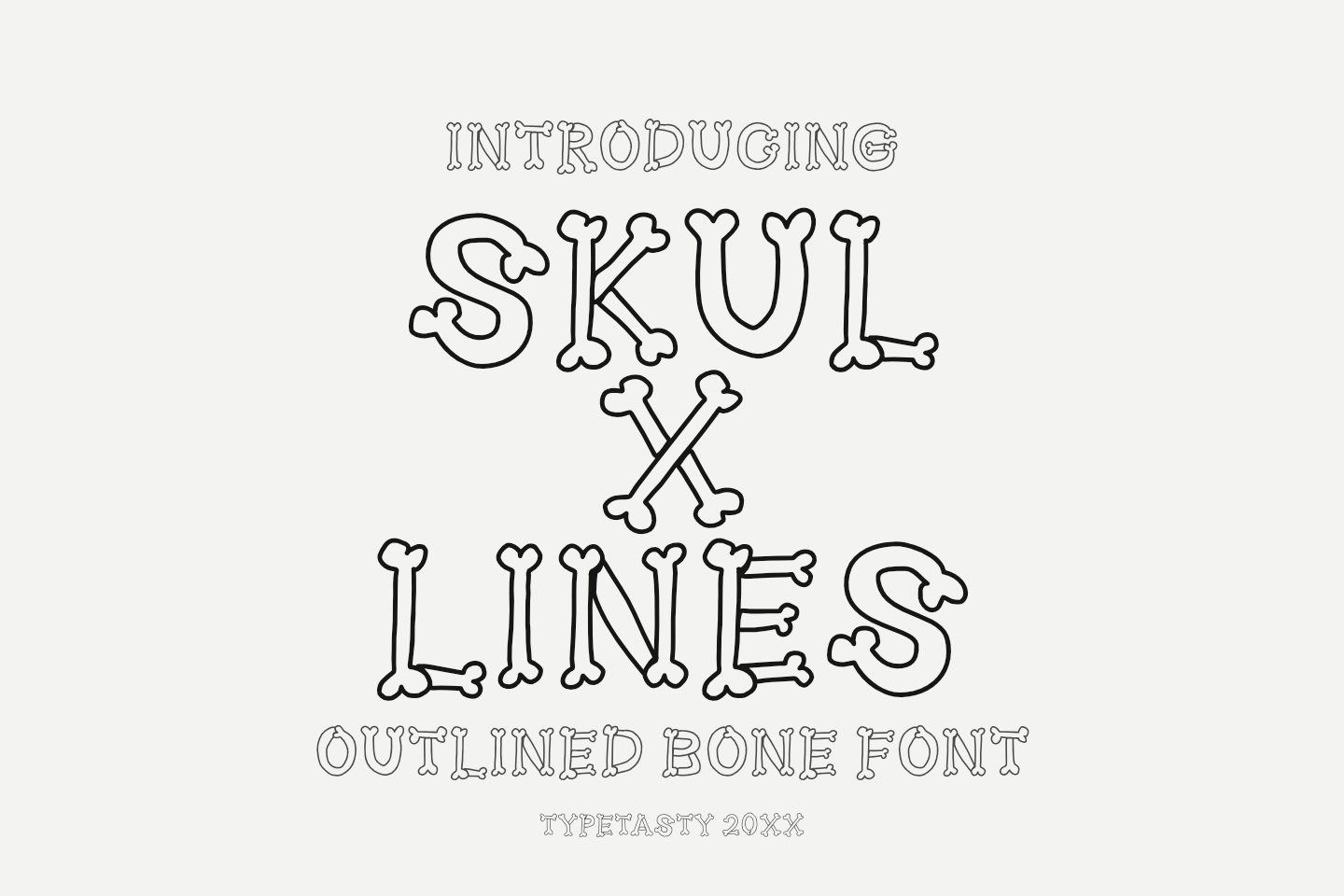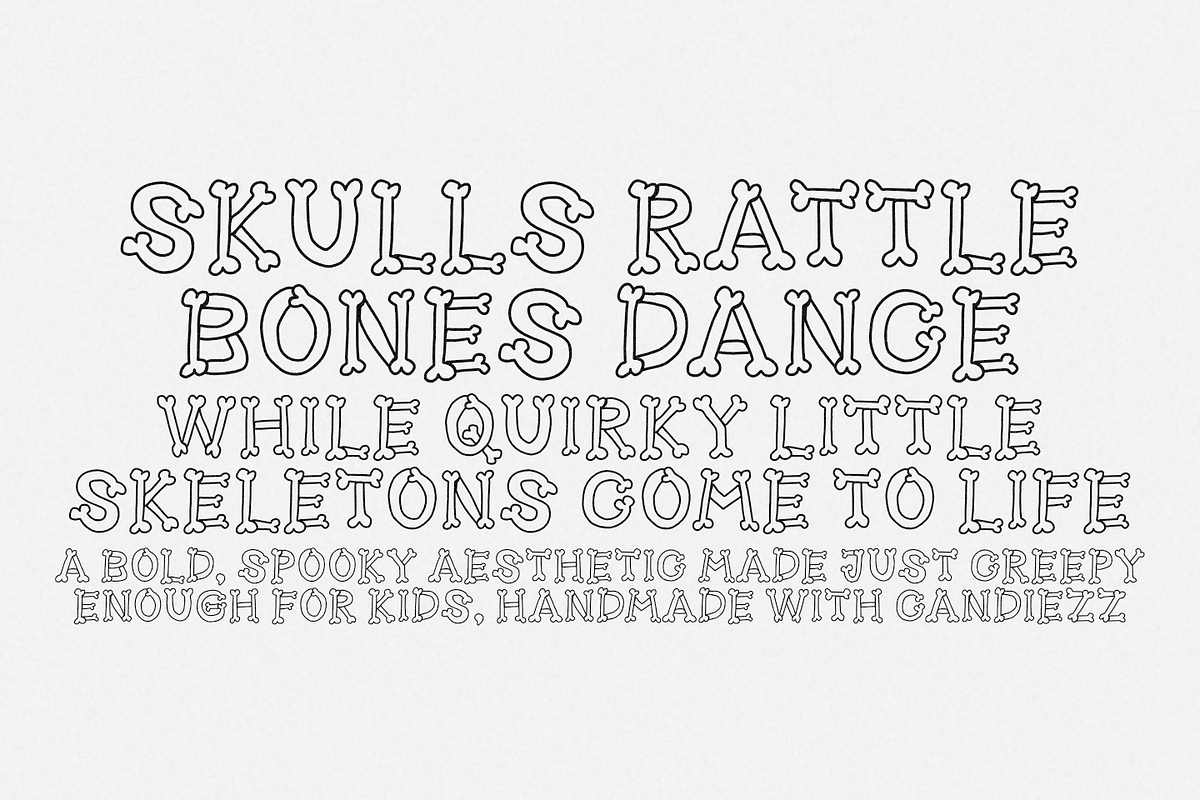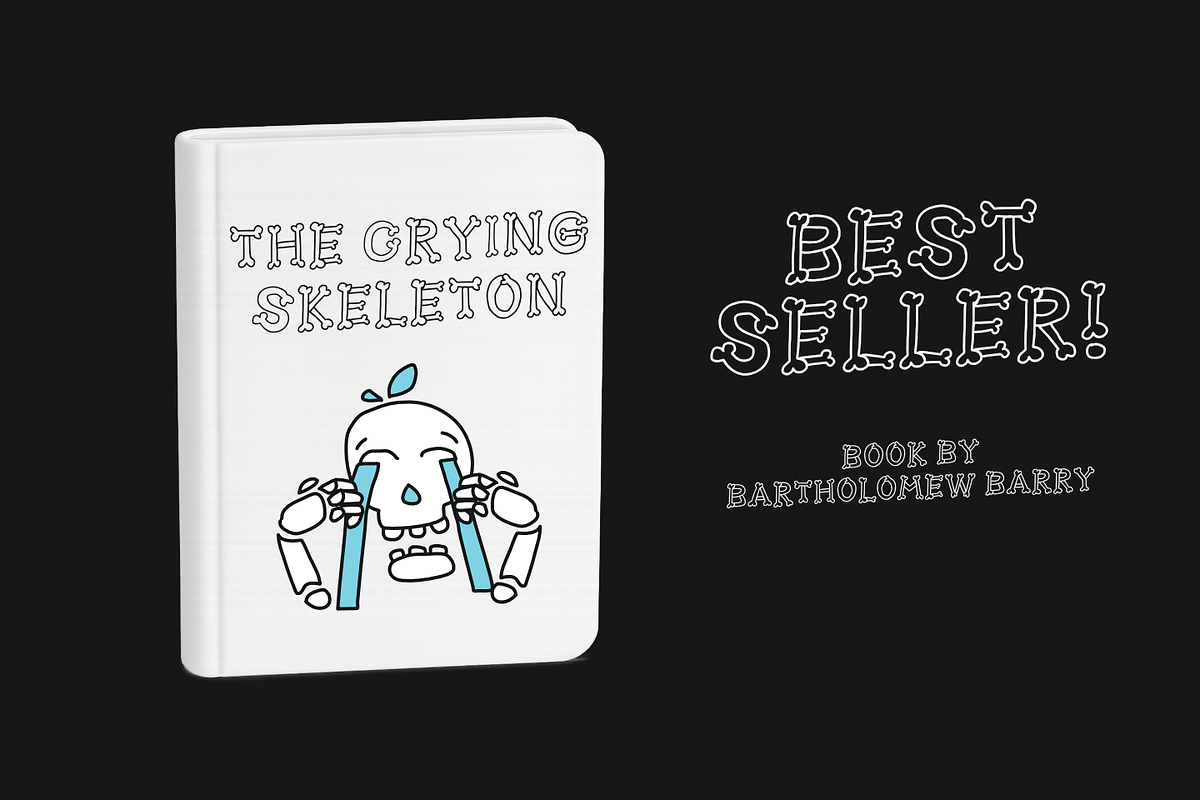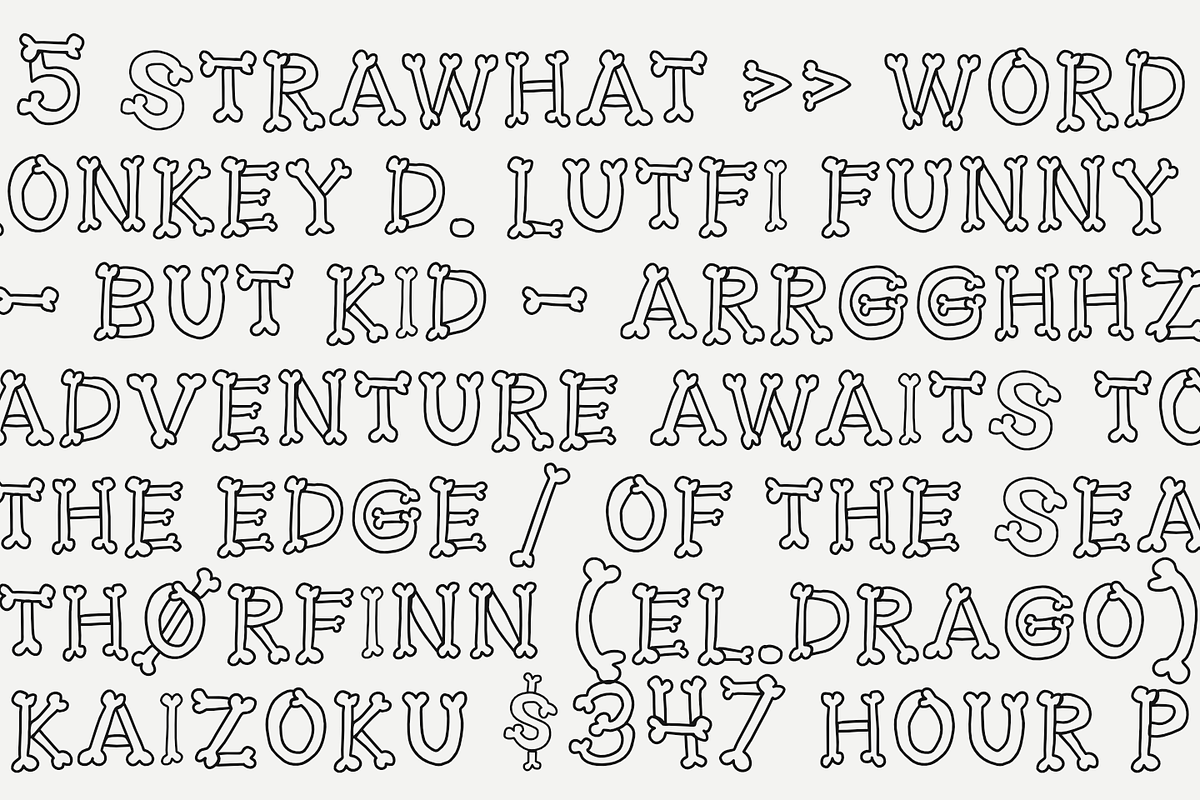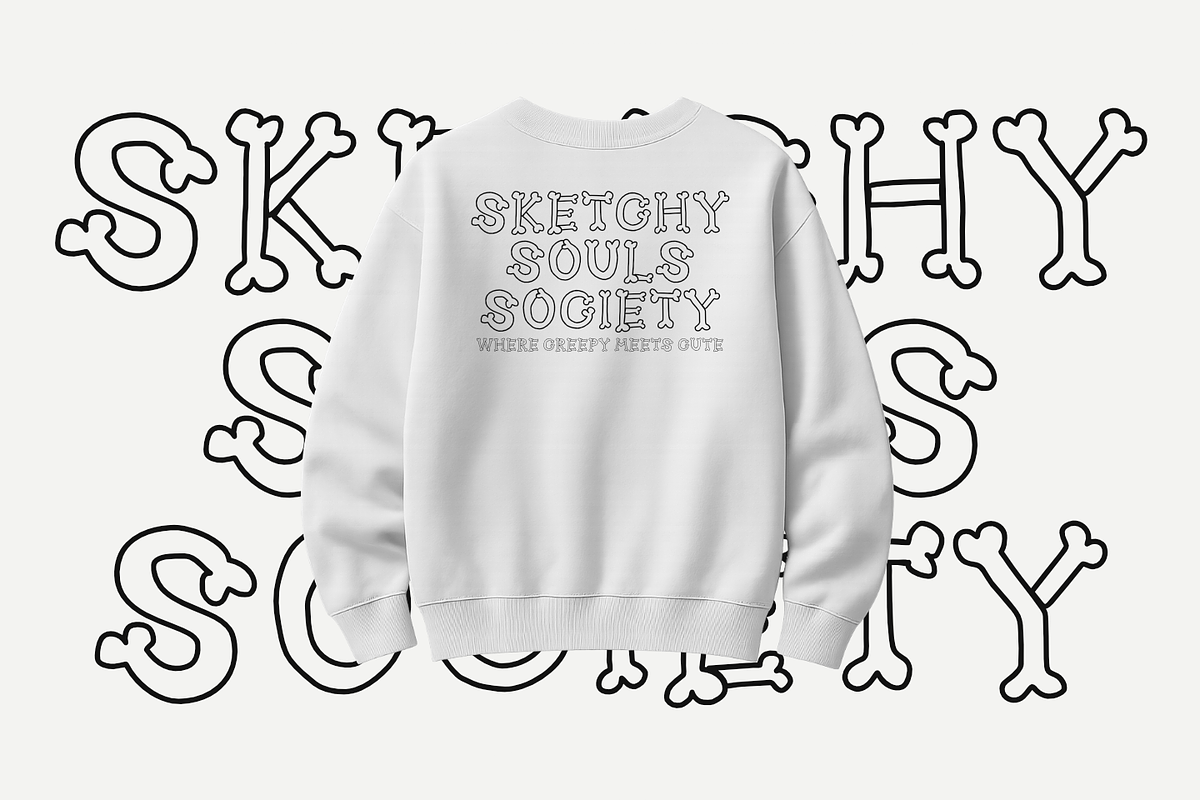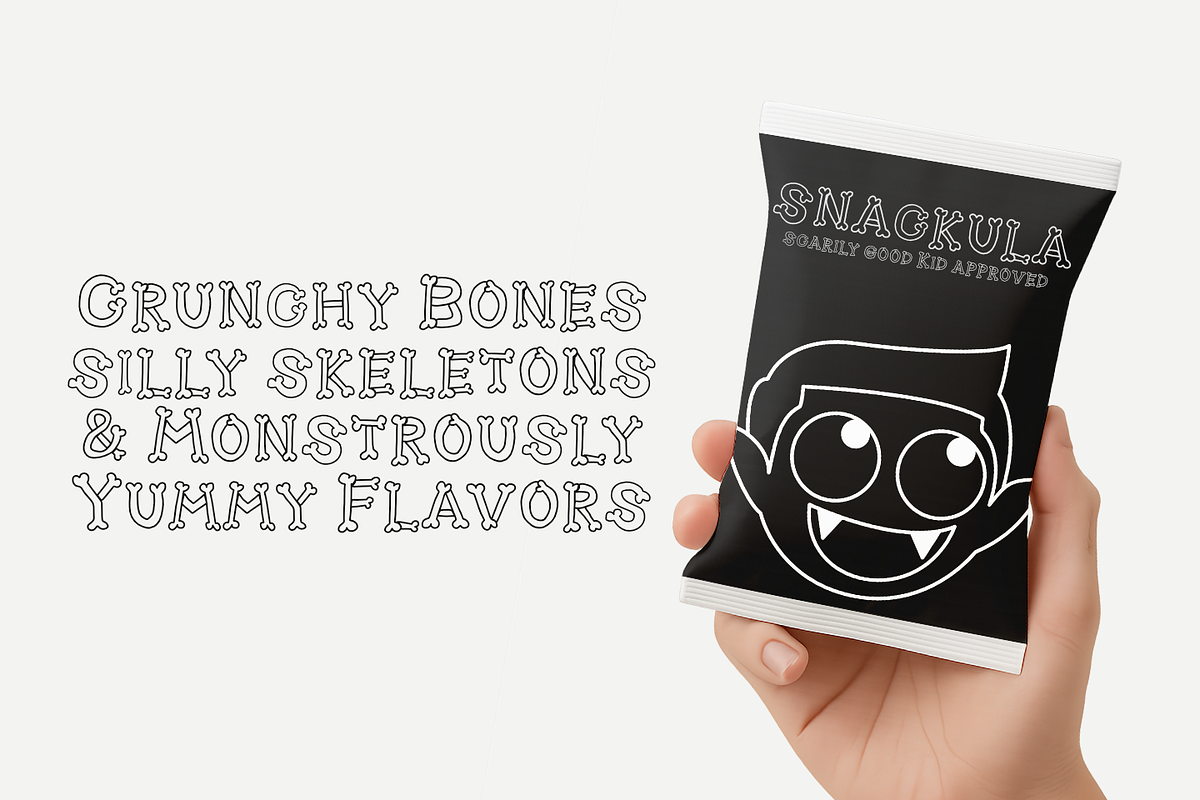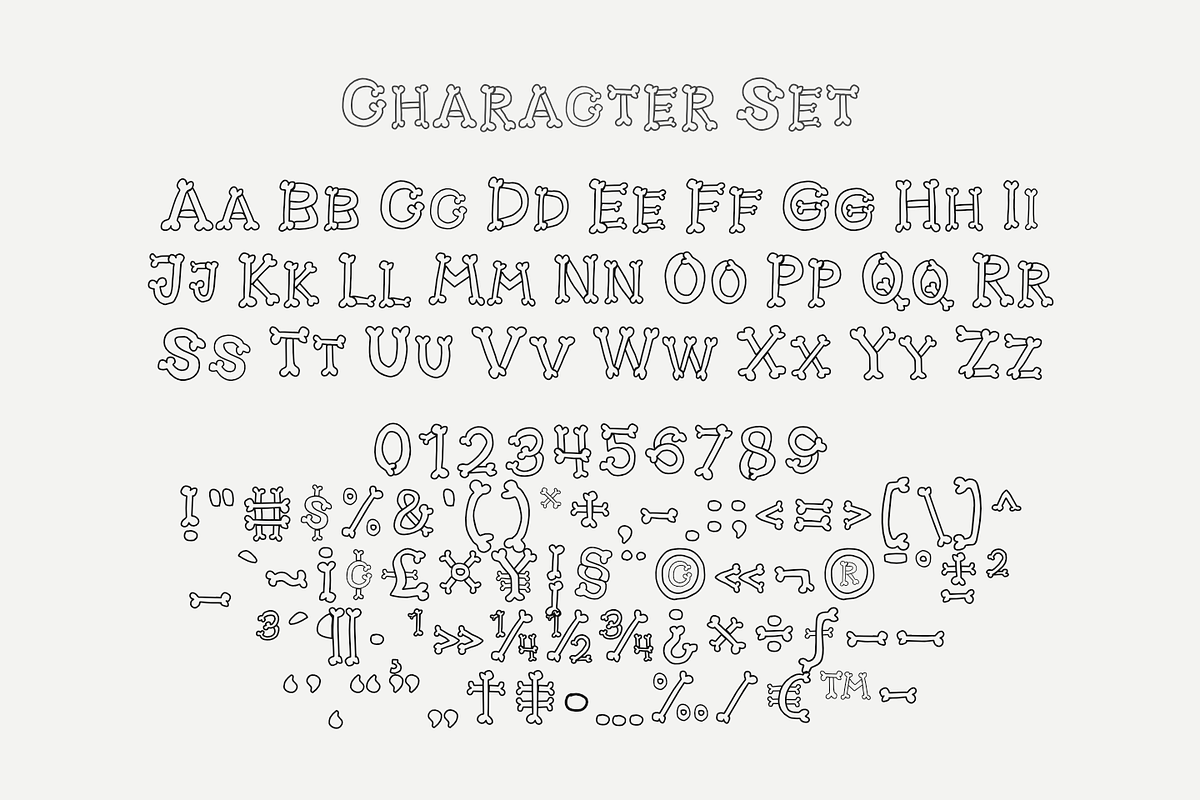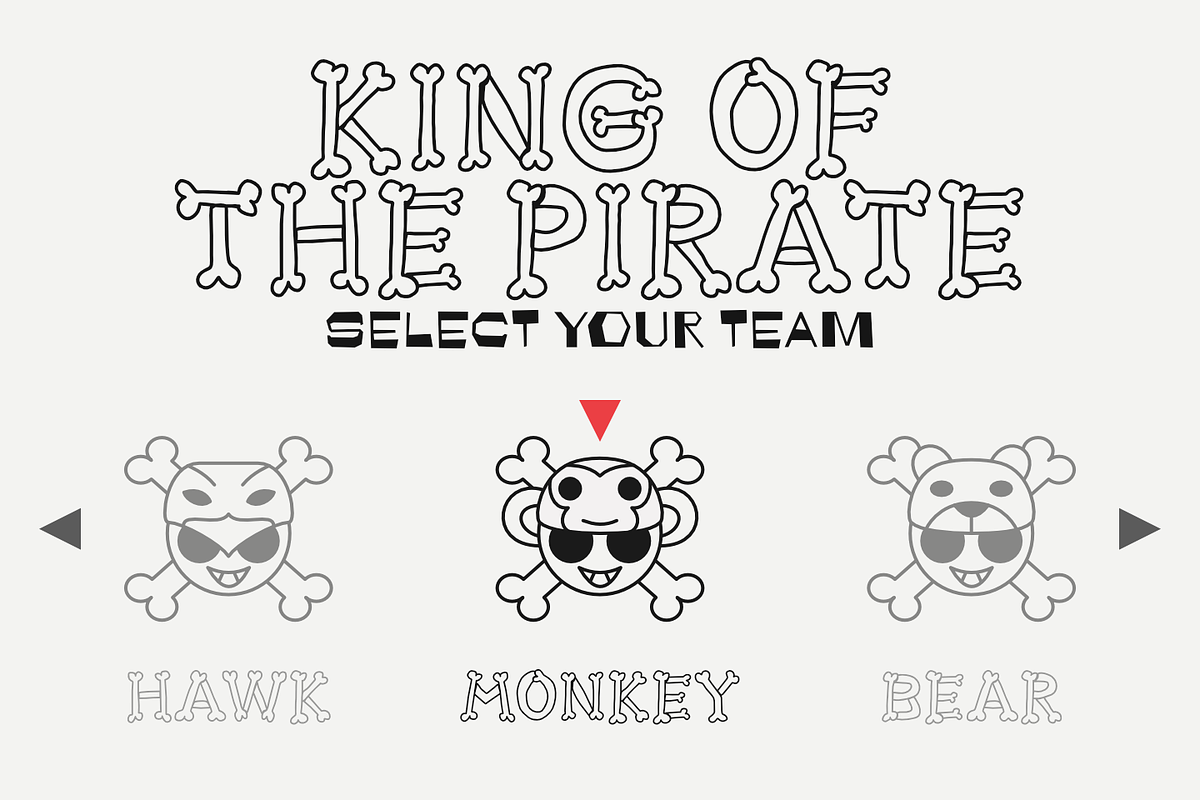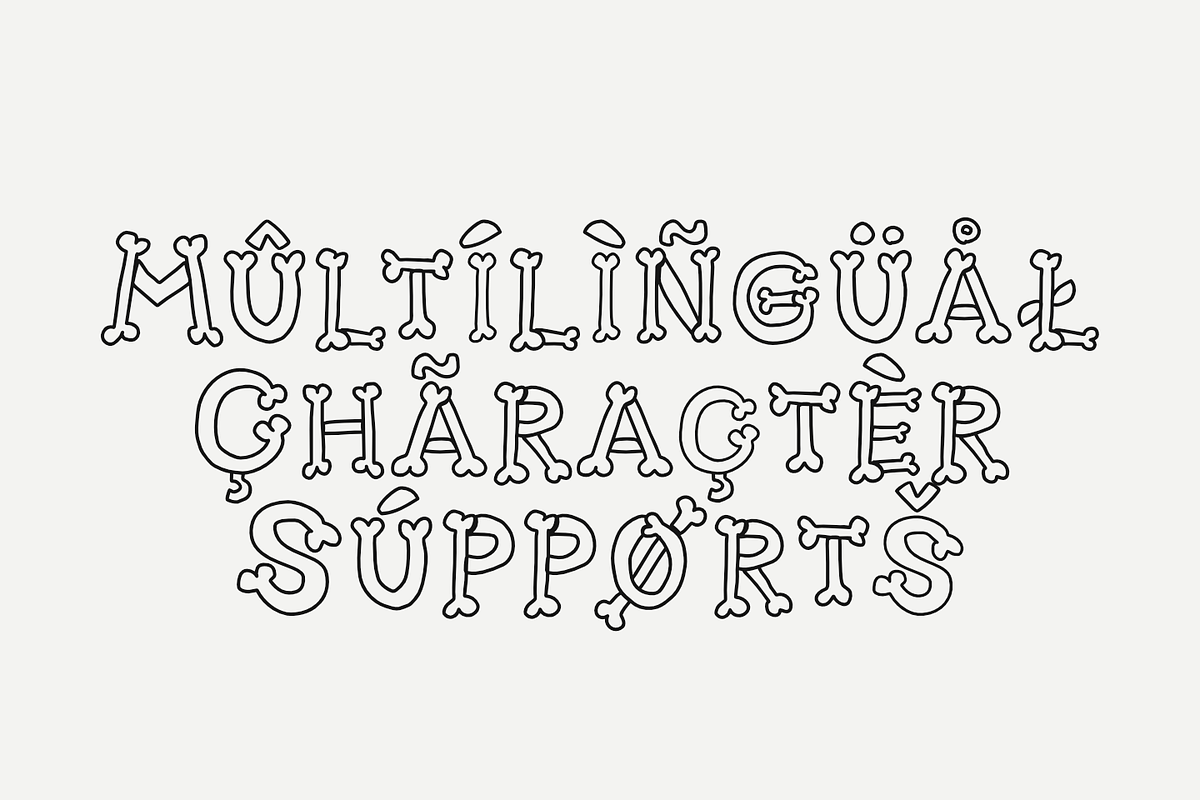
SKUL X LINES – Outlined Bone Font
SKUL X LINES is a bold bone-inspired display font that mixes creepy skeleton aesthetics with playful fun. With its chunky bone-shaped letters and lined details, this font is ideal for Halloween branding, spooky merchandise, event posters, candy packaging, children’s books, and seasonal social media content. Whether you’re creating logos, invitations, or themed designs, SKULL X LINES instantly delivers a spooky-yet-fun vibe that grabs attention.
Style & Vibe: SKUL X LINES is a bold display font made of bones, combining spooky vibes with a quirky, playful twist. It’s perfect for creating designs that feel scary, fun, and eye-catching at the same time.
Intended Market Vibe: Perfect for Halloween themes, spooky parties, edgy branding, children’s book covers, merchandise, and packaging.
Letterform Structure: Thick, rounded letterforms shaped like bones with lined details that add depth and character. The mix of boldness and cartoonish curves makes it approachable yet creepy.
Best Use Cases:
Halloween Branding (logos, posters, invites, party kits)
Social Media Content (Instagram stories, TikTok covers, spooky reels)
Packaging & Merch (snacks, candy, quirky t-shirts, tote bags)
Children’s Books & Story Titles
Events & Seasonal Campaigns
Turn your designs into spooky showstoppers with SKUL X LINES the bold bone font that fuses creepy skeleton aesthetics with playful personality.
Why Designers Love It:
Bone-Inspired Design → Thick strokes shaped like cartoon bones.
Bold & Fun → Perfect mix of spooky and playful.
Highly Versatile → Works across print, packaging, merch, and digital media.
Instant Theme → No need for extra graphics, the font sets the mood on its own.
Halloween posters & invitations 🎃
Spooky packaging & merchandise 🛍️
Branding with quirky edge 🦴
Kids’ book titles & story covers 📚
Seasonal campaigns & social posts 📱